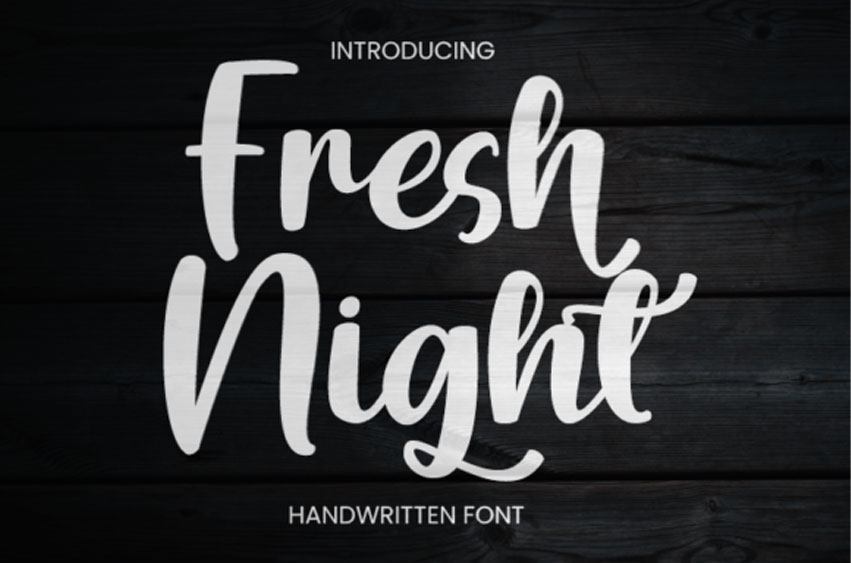
Fresh Night Font
Fresh Night Font is a simple handwritten font that you can use for all chalkboard quotes or teaching materials!
Its authentic look will add a personal and realistic feel to your designs. This font is PUA-encoded, which means you can access all of the glyphs and swashes with ease!